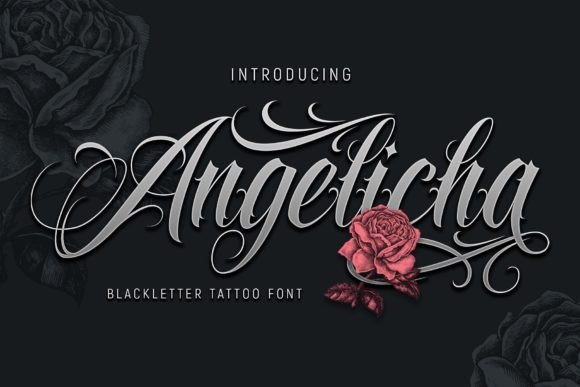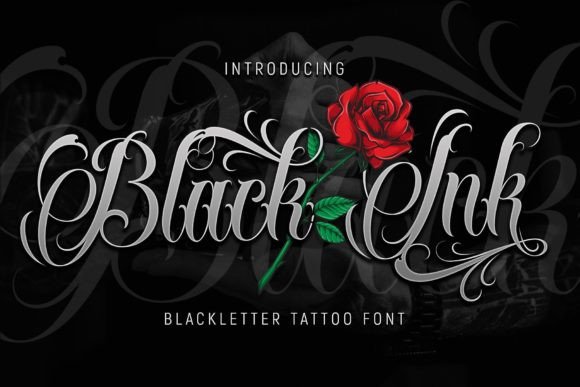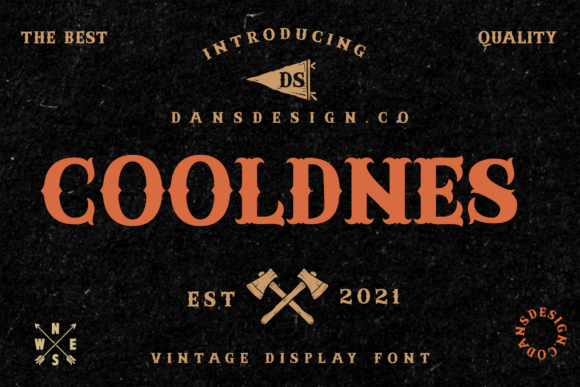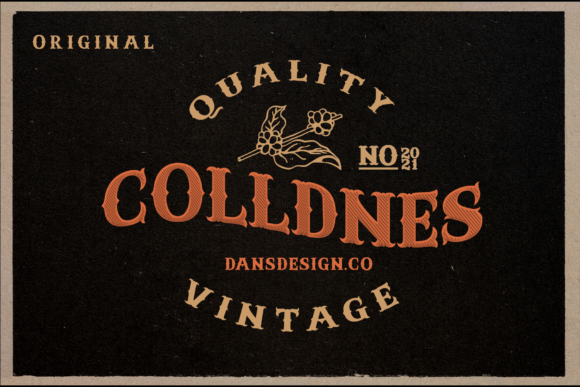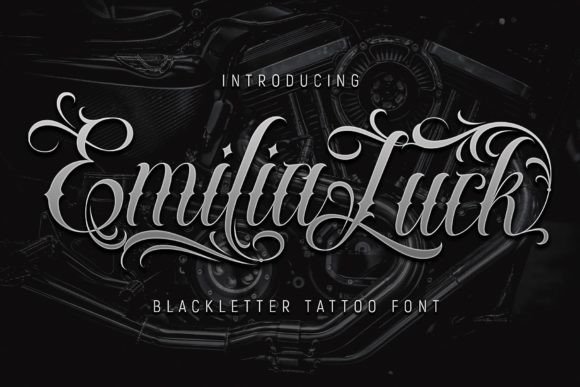
10 Trending Tattoo Fonts in 2026
As a designer working across tattoo-inspired typography, I see this 2026 collection of “10 Trending Tattoo Fonts” as a refined blend of expression and structure. Each typeface in this selection reflects the current shift toward personalized, emotionally driven design — from delicate fine-line scripts to bold blackletter revivals and modern calligraphic hybrids. These fonts aren’t just decorative; they carry identity, mood, and storytelling power. I use them in branding and illustration projects where authenticity and visual impact need to coexist, especially in designs that aim to feel both timeless and deeply personal.
Black Ink Tattoo Font
I use Black Ink in my design projects when I want bold typography with a strong contemporary blackletter style. Its tattoo-inspired aesthetic works perfectly for logos, t-shirt graphics, posters, flyers, and edgy brand identities. I love how it adds attitude, character, and a powerful visual presence that instantly makes my designs stand out.
Tattoo Master Tattoo Font
I use Tattoo Master in my design projects when I want bold blackletter typography with a strong and striking presence. Its simple yet powerful style works perfectly for logos, tattoo-inspired artwork, posters, apparel designs, and edgy branding. I love how it instantly adds intensity and character, making every composition feel more confident and visually impactful.
Firebirds Tattoo Font
I use Firebirds in my design projects when I want typography with a vintage Victorian blackletter aesthetic. Its authentic and timeless style works beautifully for logos, posters, packaging, apparel, and retro-inspired branding. I love how it adds depth, elegance, and a classic gothic atmosphere that makes every design feel bold and distinctive.
Rocksane Tattoo Font
I use Rocksane in my design projects when I want typography with a dark, aggressive, and highly detailed horror metal aesthetic. Its bold character works perfectly for tattoo branding, band logos, retro-urban visuals, posters, and vintage-inspired designs. I love how it brings a raw and powerful energy that instantly gives my compositions a unique underground feel.
Tattoo Font
I use Tattoo in my design projects when I want bold blackletter typography with a strong and confident presence. Its thick letterforms work perfectly for logos, tattoo-inspired artwork, posters, apparel, and edgy branding concepts. I also appreciate its PUA encoding, which gives me easy access to decorative glyphs and swashes for more customized and expressive typography.
Emilia Luck Tattoo Font
I use Emilia Luck in my design projects when I want contemporary blackletter typography with a bold tattoo-inspired style. It works perfectly for logos, t-shirt graphics, posters, flyers, and strong brand identity visuals. I love how the font combines classic blackletter energy with a modern edge, giving my designs a powerful and artistic character.
Cooldnes Tattoo Font
I use Cooldnes in my design projects when I want authentic blackletter typography with a vintage and expressive personality. Its unique style works beautifully for logos, posters, apparel, packaging, and retro-inspired branding. I love how it adds a bold classic atmosphere while still feeling creative, energetic, and visually distinctive in modern compositions.
Gifters Tattoo Font
I use Gifters in my design projects when I want bold blackletter typography with a gothic and slightly spooky atmosphere. Its dramatic style works perfectly for posters, apparel, branding, album covers, and dark creative concepts that need a daring visual impact. I love how it combines elegance with a mysterious edge, making every composition feel powerful and unforgettable.
Convencion Tattoo Font
I use Convencion in my design projects when I want authentic Victorian blackletter typography with a strong vintage character. Its classic and detailed style works beautifully for logos, posters, packaging, editorial layouts, and retro-inspired branding. I love how it adds a timeless and sophisticated atmosphere that instantly elevates the visual identity of my designs.
Angelicha Tattoo Font
I use Angelicha in my design projects when I want contemporary blackletter typography with a strong tattoo-inspired edge. Its bold and expressive style works perfectly for logos, t-shirt designs, posters, flyers, and brand identity work. I love how it brings a confident, modern intensity that makes every design feel striking and memorable.